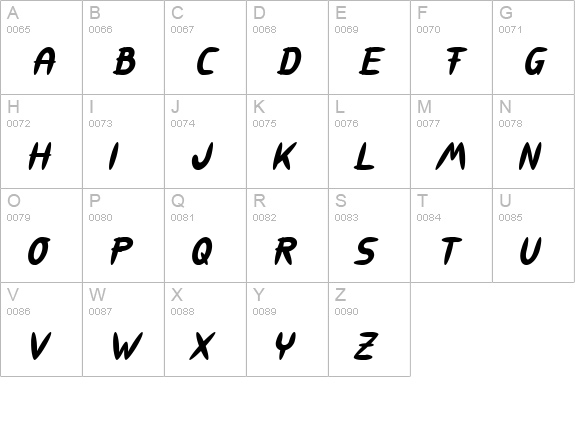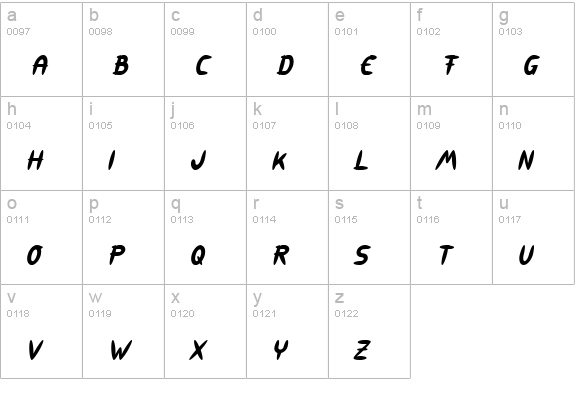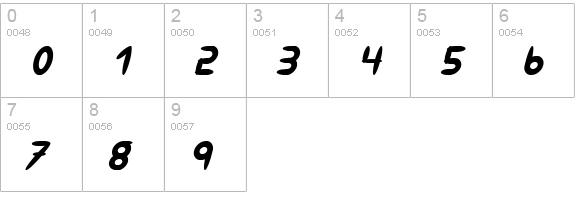
309 Italic Font Details
309 Italic is a distinctive, italic variant in the 309 typeface family \xE2\x80\x94 well suited to design and typography projects.
The 309 Italic font exudes elegance and sophistication with its sleek and slanted design. Its delicate curves and stylish appearance make it perfect for adding a touch of sophistication to any project. This font is versatile and can be used for a variety of design purposes, from formal invitations to modern branding. What makes the 309 Italic font even more appealing is that it is available for free download at FontsMarket.com. This means you can easily access this stunning font without any cost, making it a valuable addition to your font collection. Embrace the beauty and versatility of the 309 Italic font today and elevate your designs with its timeless charm.